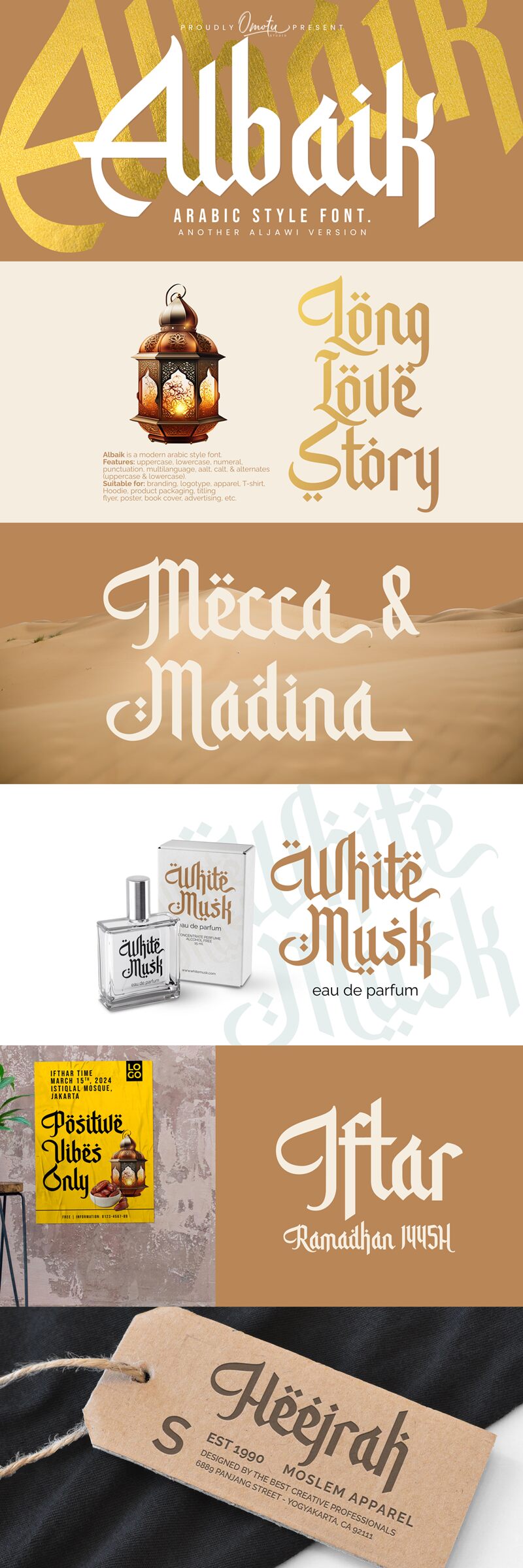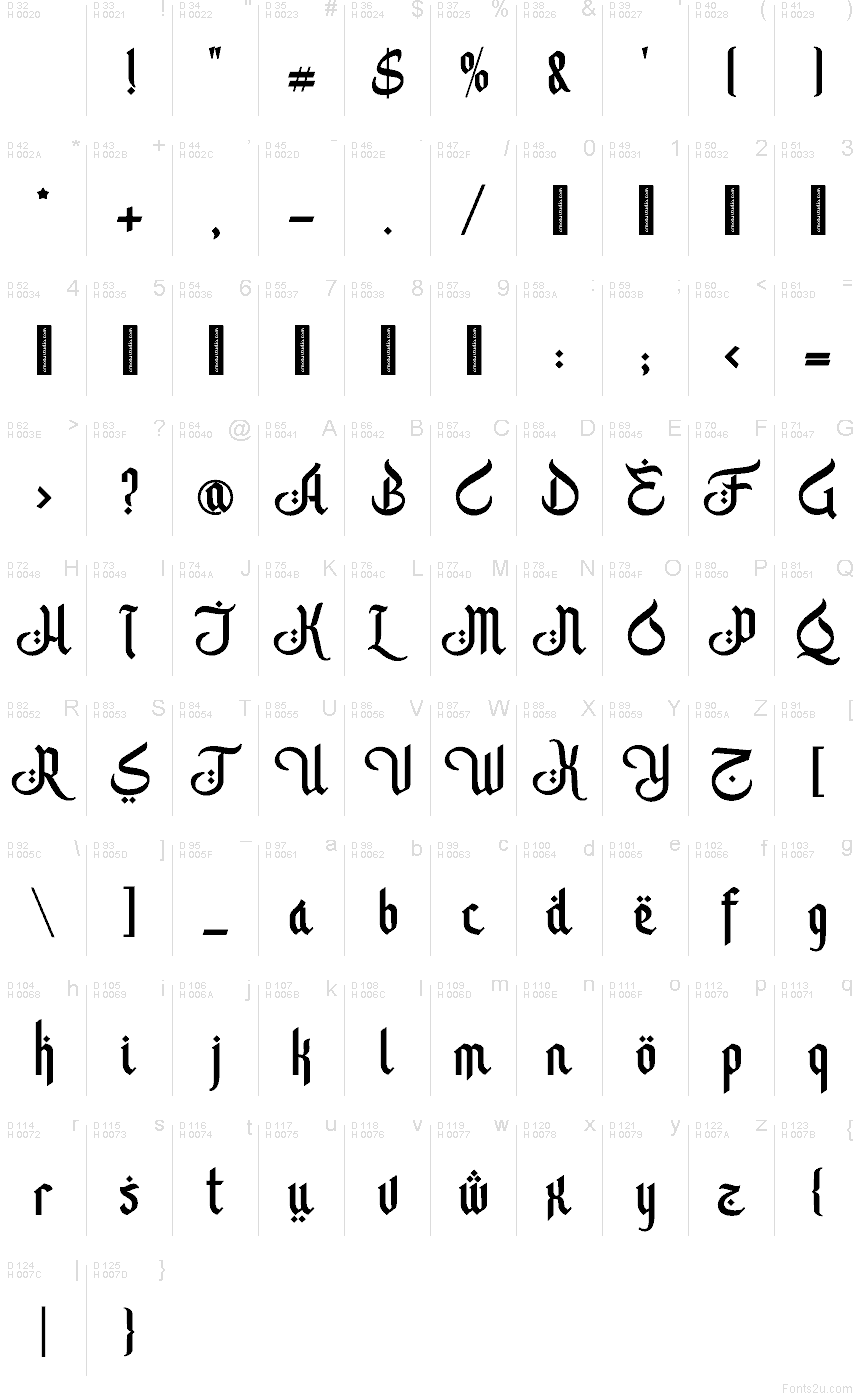
Albaik alt01
Albaik alt01 font by Omotu Studio is a free faux Arabic decorative typeface that captures the sweep and drama of calligraphy in a bold, blackletter-like body. Thick, inky strokes curl into hooked tails and diamond dots, creating an instantly recognizable Middle Eastern-inspired mood while staying crisply legible in Latin letters. The rhythm feels ceremonial and slightly theatrical, giving headlines a sense of ritual and storytelling rather than just another stylistic flourish.
Using Albaik alt01 in the Albaik family, your eye goes straight to the strong verticals and sculpted curves, which makes this free font shine on restaurant logos, street-food branding, hookah lounge signage, festival posters, packaging, and themed event invitations. It works beautifully when set large and given room to breathe, then paired with a simple geometric sans for body copy to keep everything grounded and readable.